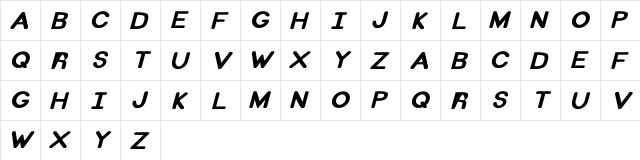
Design Context for PSSezame Bold Italic Typeface
PSSezame Bold Italic is a composed and adaptable typeface that performs quietly and consistently across a wide range of design contexts. The slanted form adds forward momentum and visual energy. Its bold stroke weight gives it real presence on the page.
Pro Tip: Try PSSezame Bold Italic for annotation and caption copy alongside an upright companion — the contrast in angle creates a dynamic but ordered typographic system.